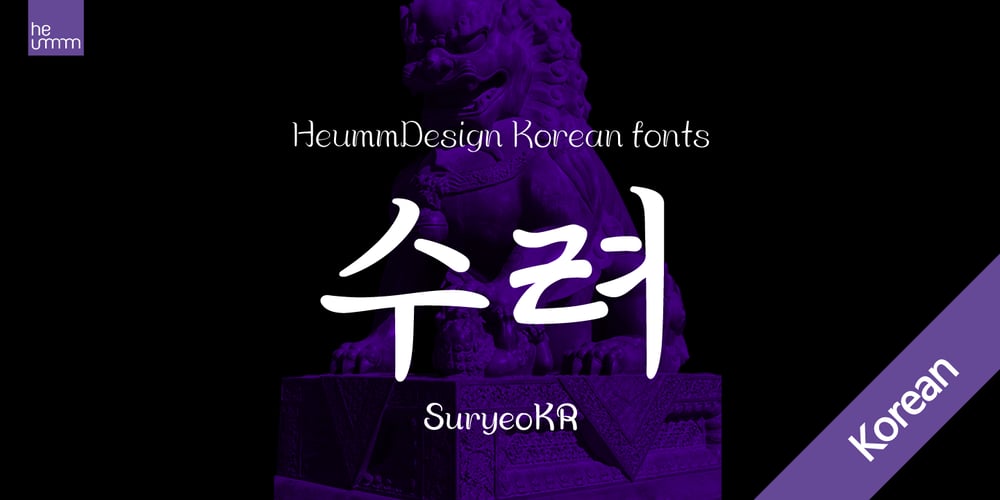
HU Suryeo KR Font Family was designed by Wonjoon Huh and published by Heummdesign. HU Suryeo KR contains 3 styles and family package options. HU SuryeoKR is a new typeface of Heumm’s calligraphy that takes the motif from carefully written calligraphy. It follows the calligraphic shape of Korean classics and can be used for titles and body text without distinction. The stroke thickness, strength, and degree of bending were set differently for each style. The thinner it is, the sharper it is, and the thicker it is, the blunt and round it is. HU SuryeoKR includes Korean.